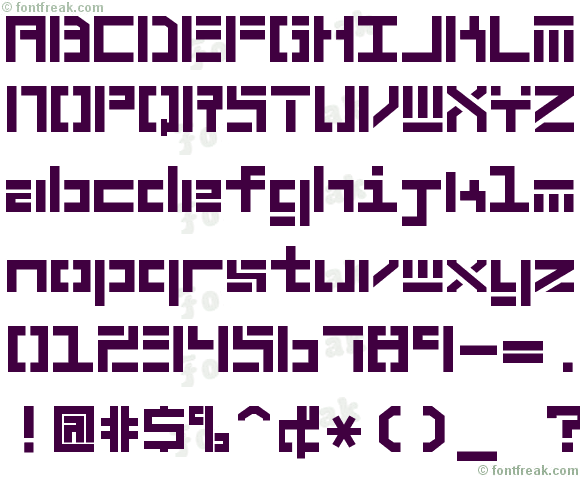
Braciola MS
Braciola MS ExB Ascii
Braciola MS Extrabold
Braciola MS ExB Stencil
Braciola MS is a striking display font crafted by kmzero font foundry, embodying a modern stencil style that is both bold and eye-catching. This font features an extra bold stroke weight that provides a commanding presence, making it ideal for projects that require emphasis and clarity. The contrast between thick and thin lines is minimal, contributing to a sturdy and impactful appearance. Its unique stencil design introduces playful gaps in the letters, adding a decorative element that captures attention without compromising legibility.
This versatile font is well-suited for a variety of use cases. It shines in applications such as movie posters, where its boldness can evoke strong emotions and attract viewers. Additionally, Braciola MS is perfect for restaurant menus, giving a contemporary twist to the dining experience while ensuring readability. It can also elevate promotional materials for events, making invitations stand out with its distinctive style. Graphic designers and content creators will find this font particularly appealing for branding projects and social media graphics, where a memorable visual identity is essential.
What sets the Braciola MS font apart is its unique blend of modernity and playfulness. Its stencil characteristics provide an artistic edge while maintaining a professional appearance, making it a remarkable choice for any creative project. For those interested in enhancing their designs, the Braciola MS font free download is readily available, ensuring that this exceptional typeface can be incorporated into various artistic endeavors.